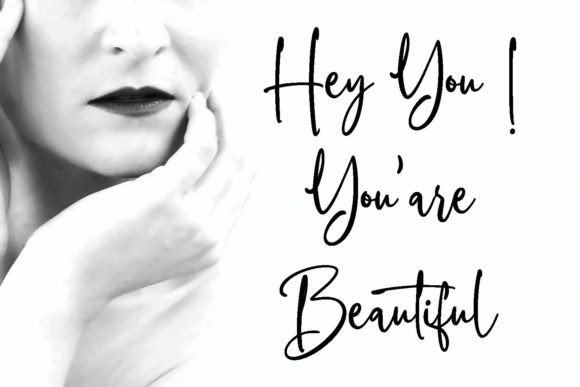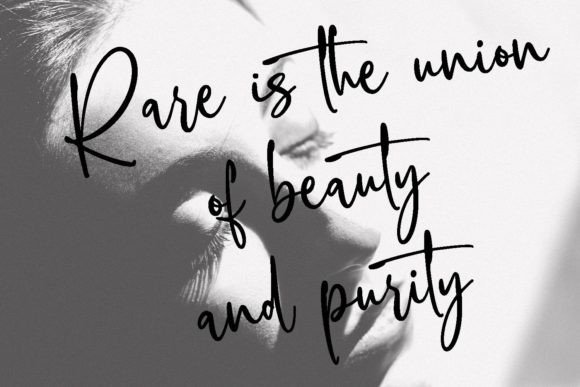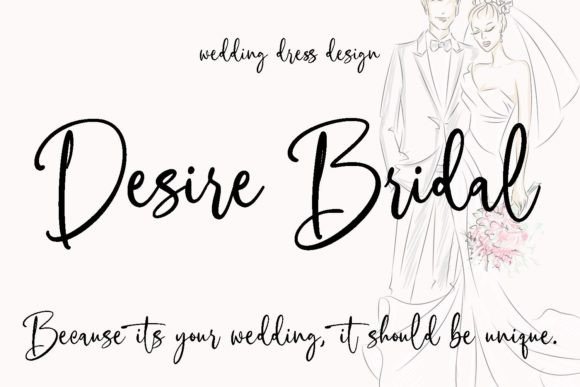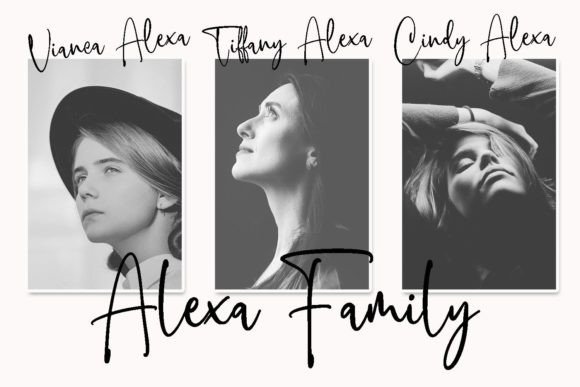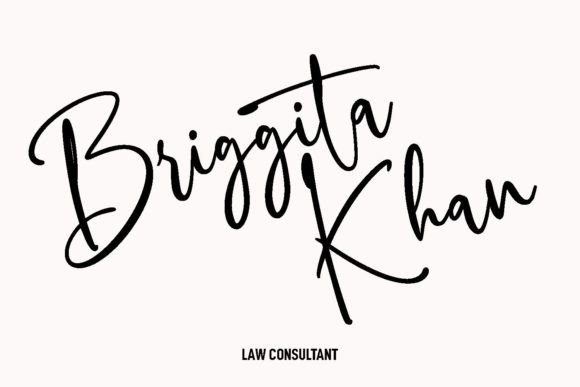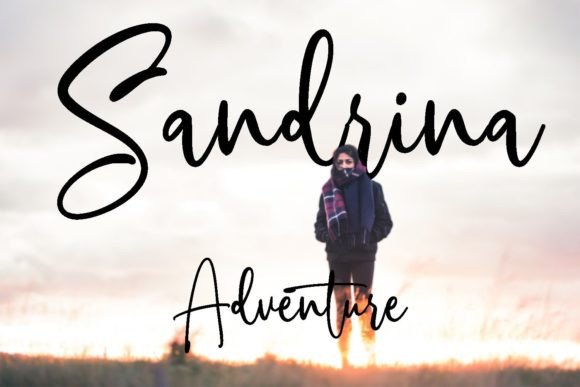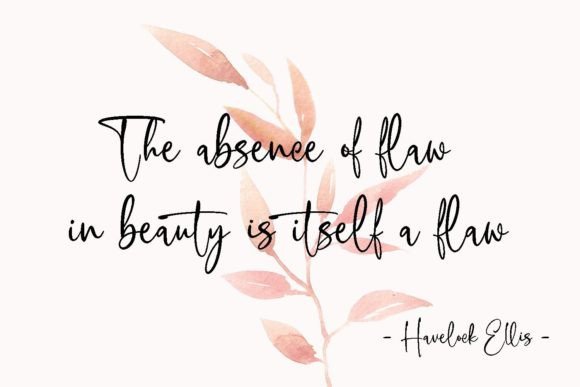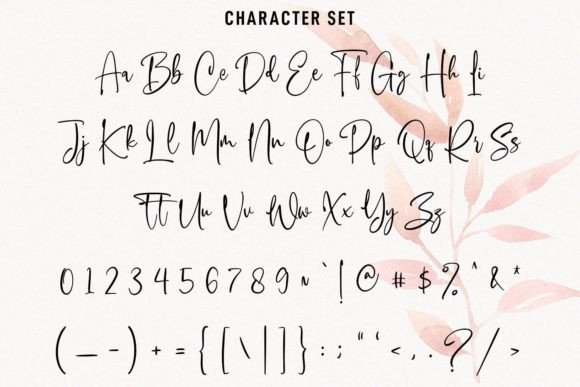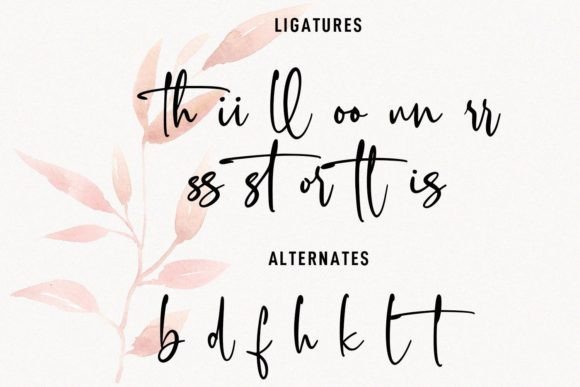
Heistorika Font
About Heistorika Font
“Heistorika” is an ink-inspired, fancy handwritten script font designed to bring a touch of elegance and creativity to your projects. With its upright style, light contrast stroke, and playful characters, this font offers a unique aesthetic. Additionally, it features ligatures and alternates, providing extra creative possibilities for your designs.
The fancy and handwritten nature of “Heistorika” makes it a versatile choice for various design applications. Whether you’re working on logo design, social media graphics, movie titles, book titles, or even long text letters, this font adds a distinctive and stylish flair to your text.
The inclusion of ligatures and alternates in “Heistorika” enhances its flexibility, allowing you to experiment with different creative elements in your design work. It can also serve as a complementary secondary text font when paired with sans or serif typefaces.
In summary, “Heistorika” is more than just a font; it’s a design tool crafted to add elegance and creativity to your projects. Whether you’re creating a stunning logo, engaging social media content, or captivating book titles, let this fancy handwritten script font be the key to making your work stand out with style and sophistication.